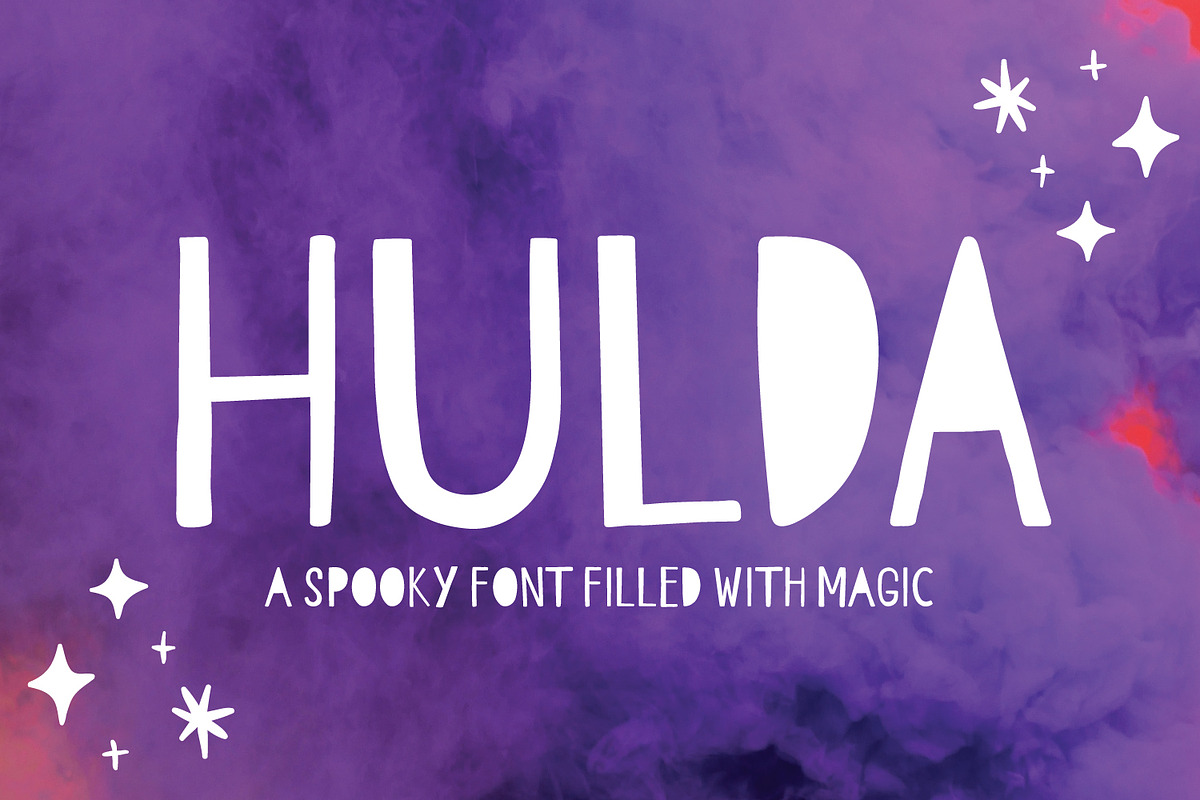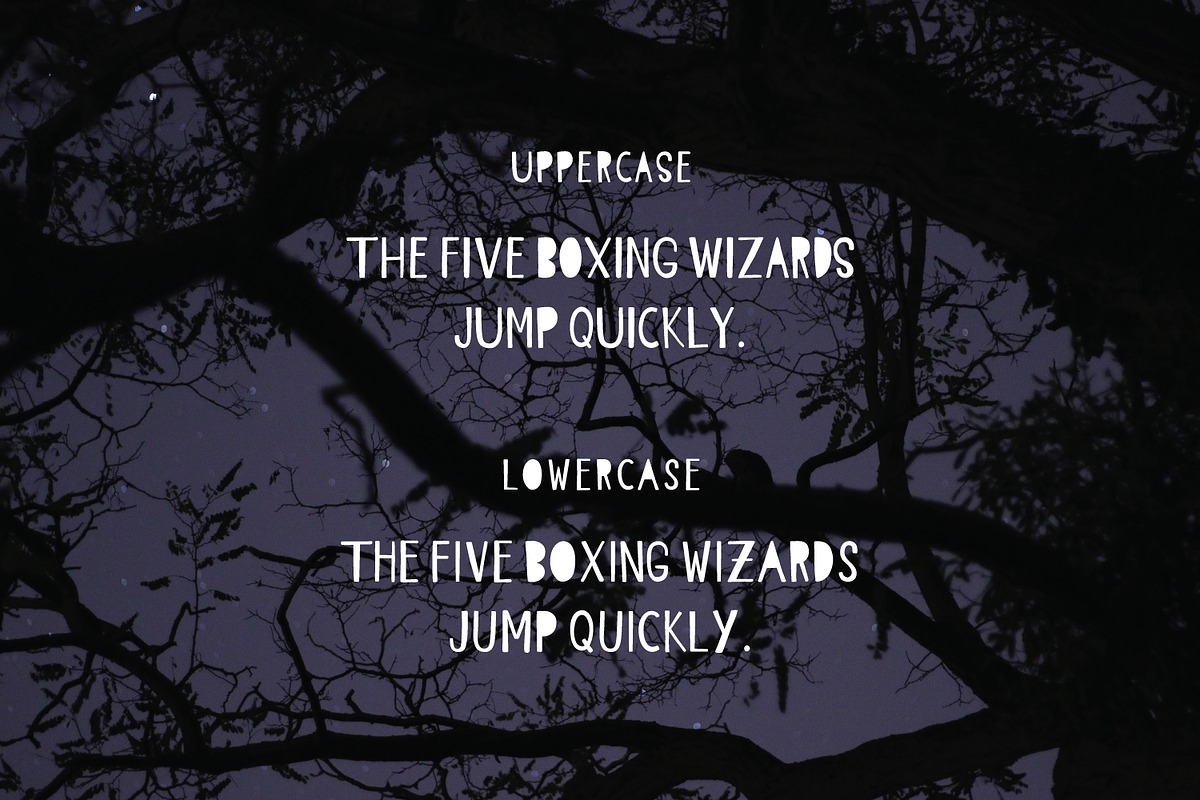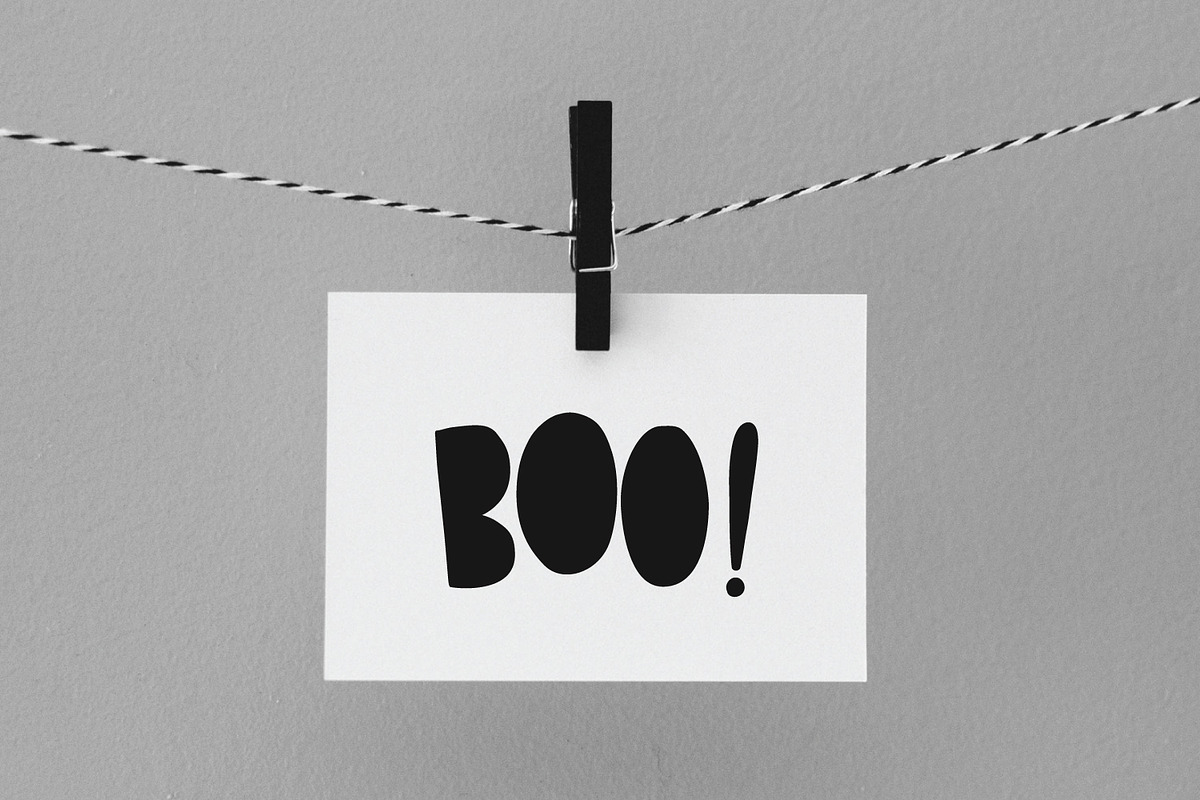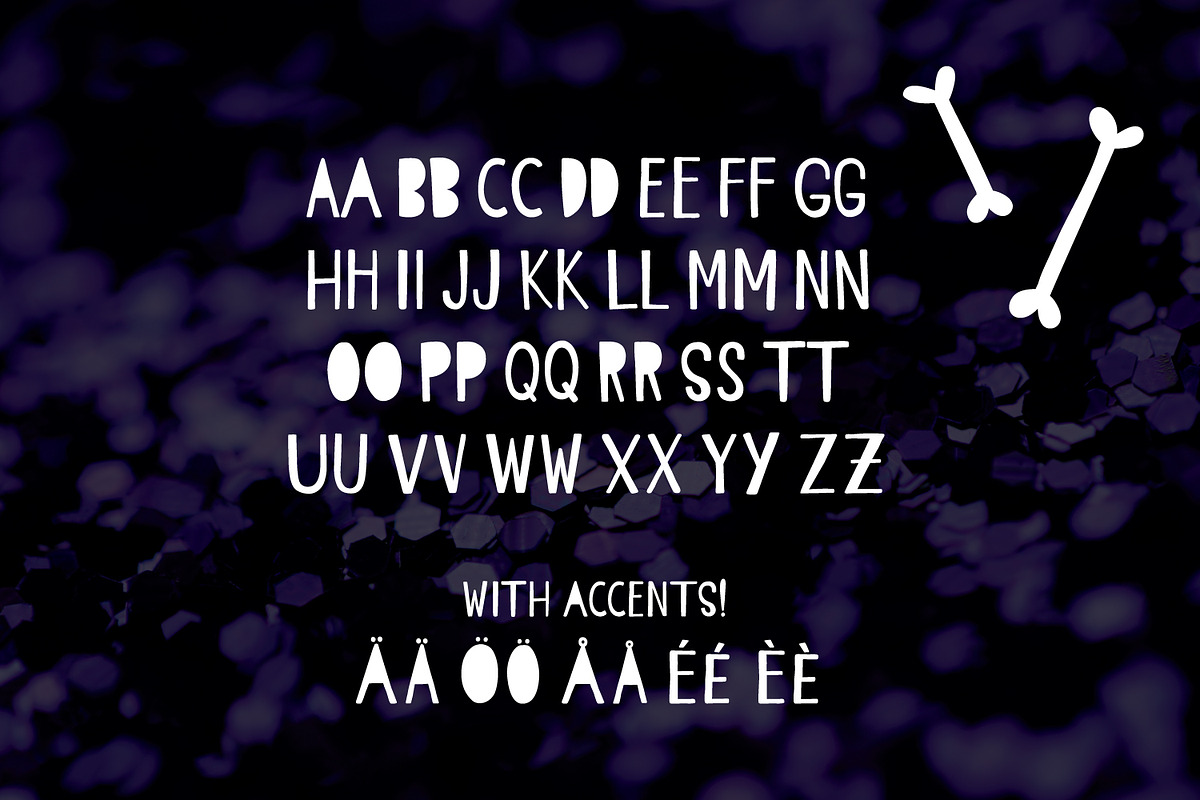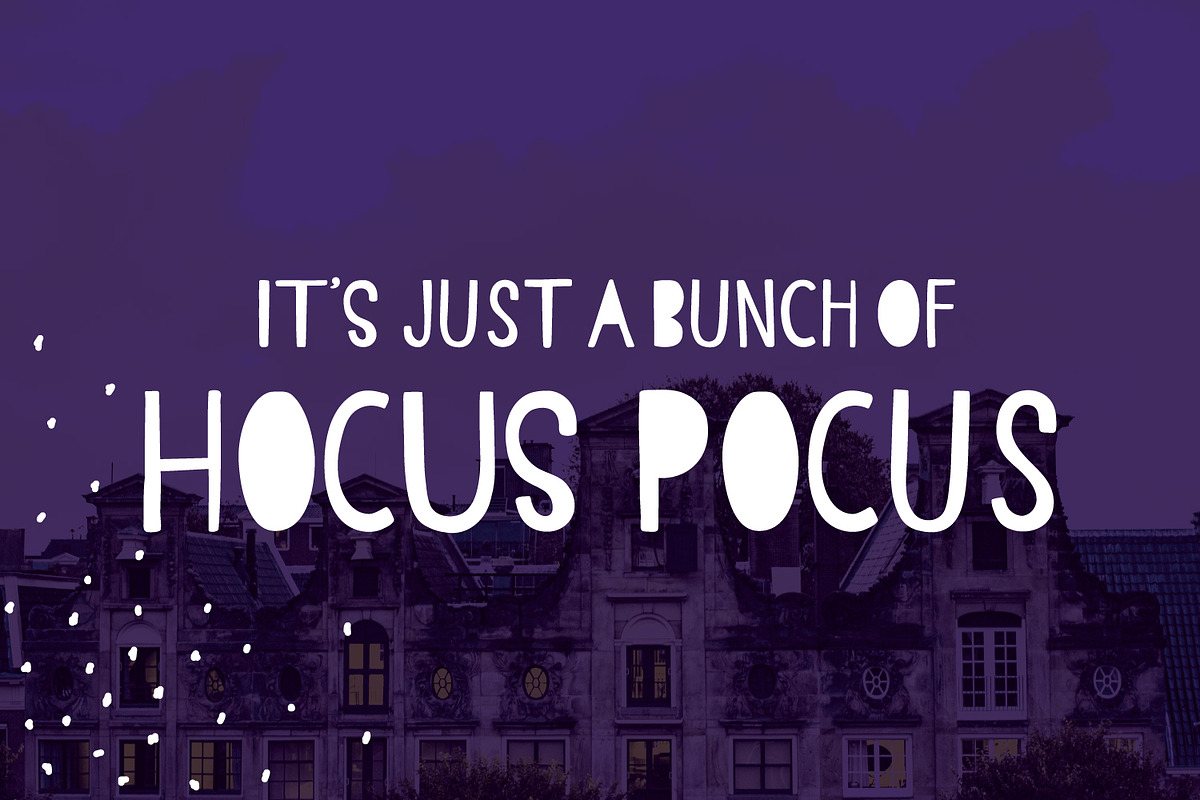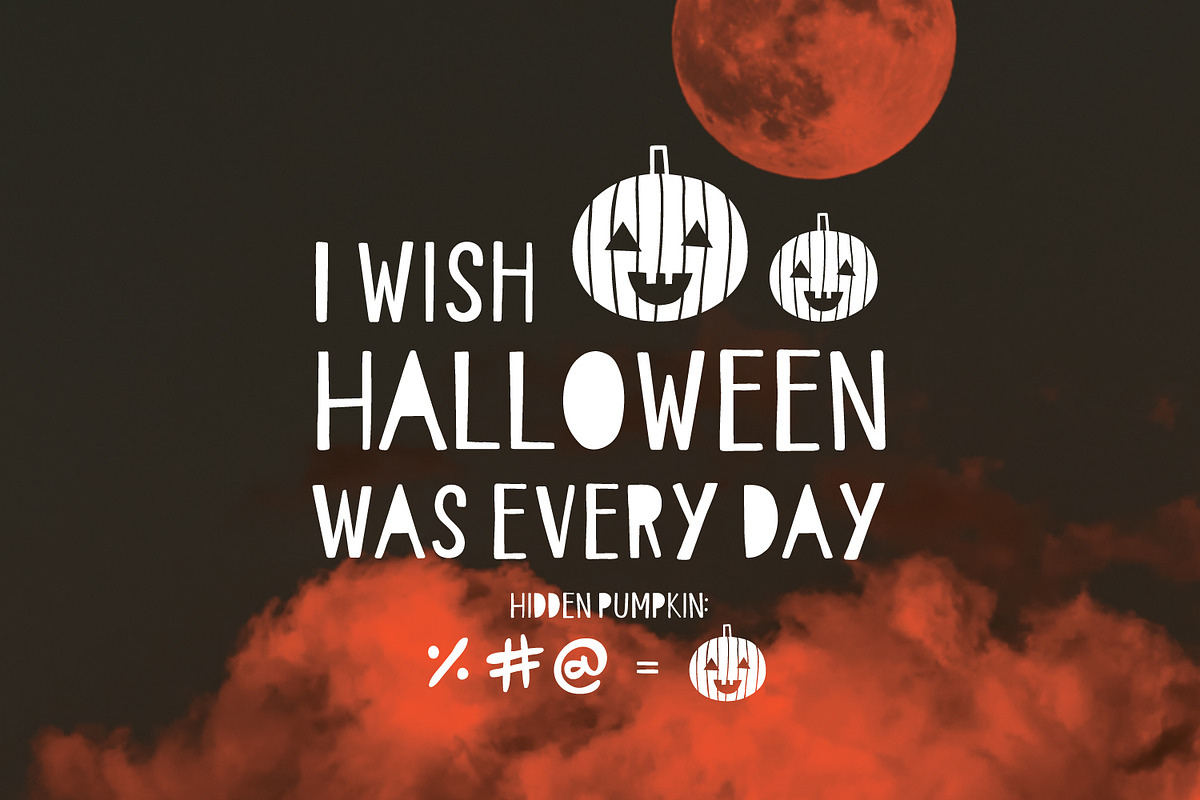
Hulda
Hulda is a fun, spooky and magical font!
The font has different uppercase and lowercase letters, though all of them are designed as uppercase.
Hulda includes Å. Ä, Ö, É and È. Symbols # % and @ all reveal a hidden pumpkin in the font.